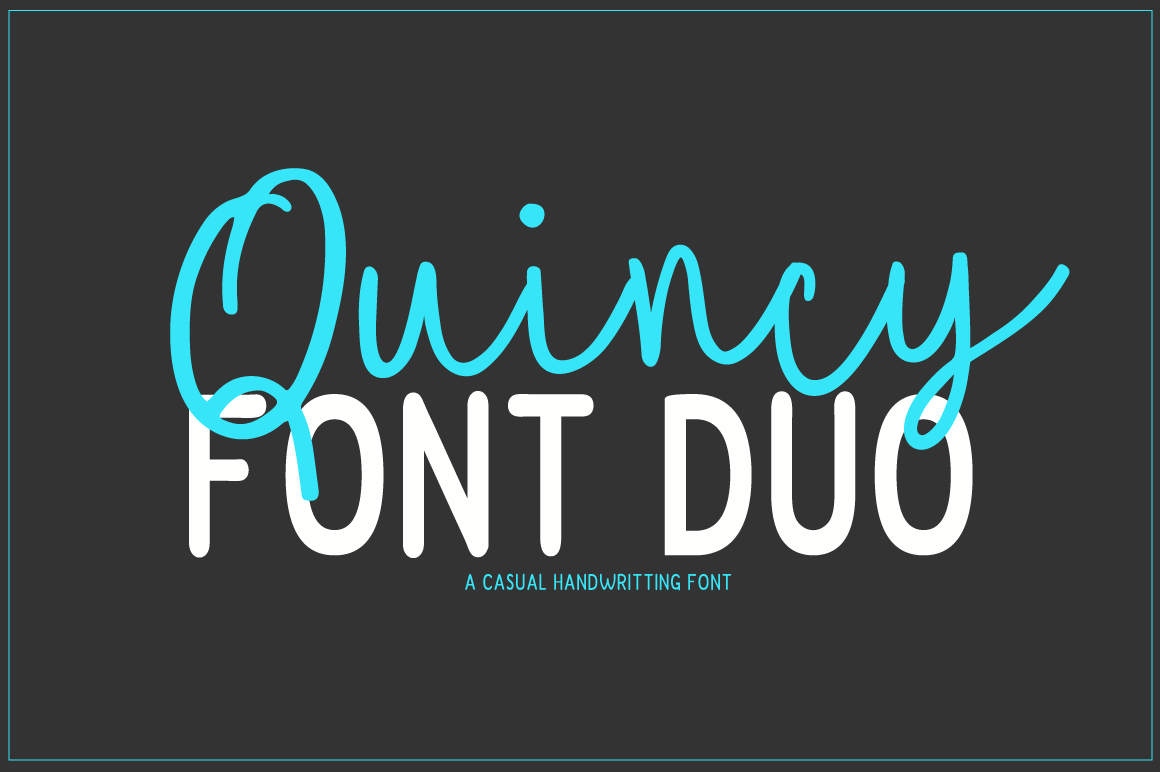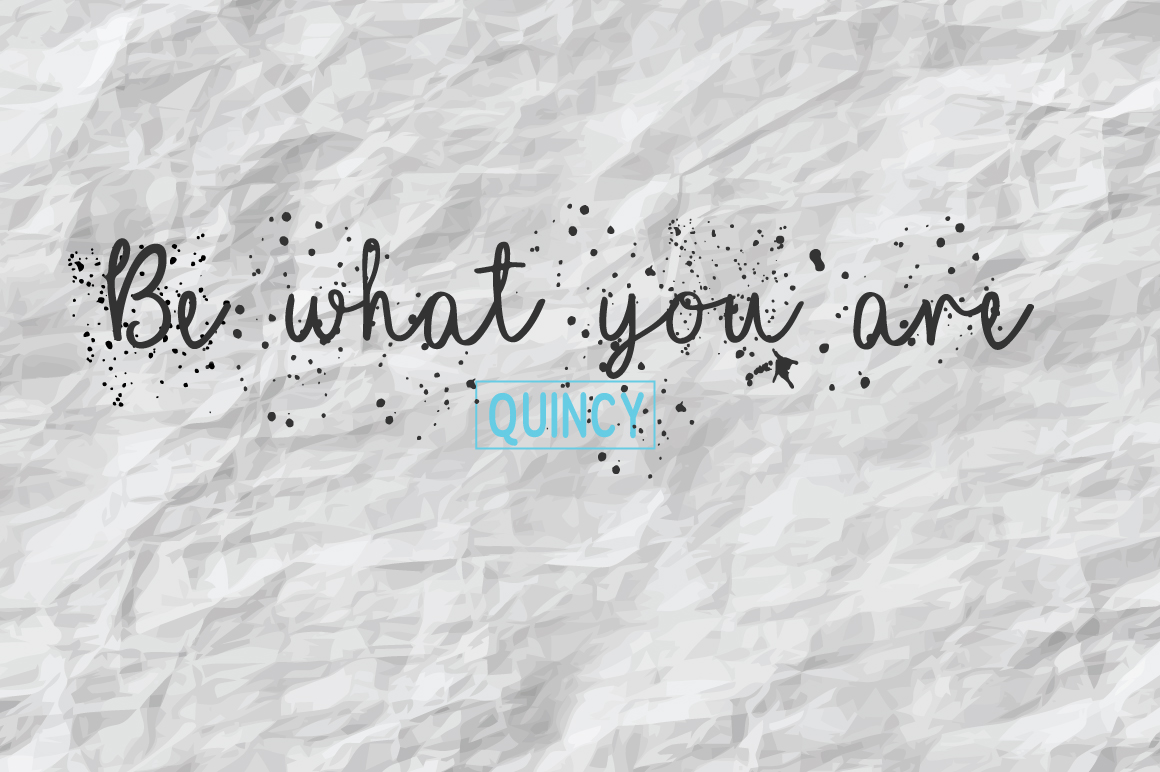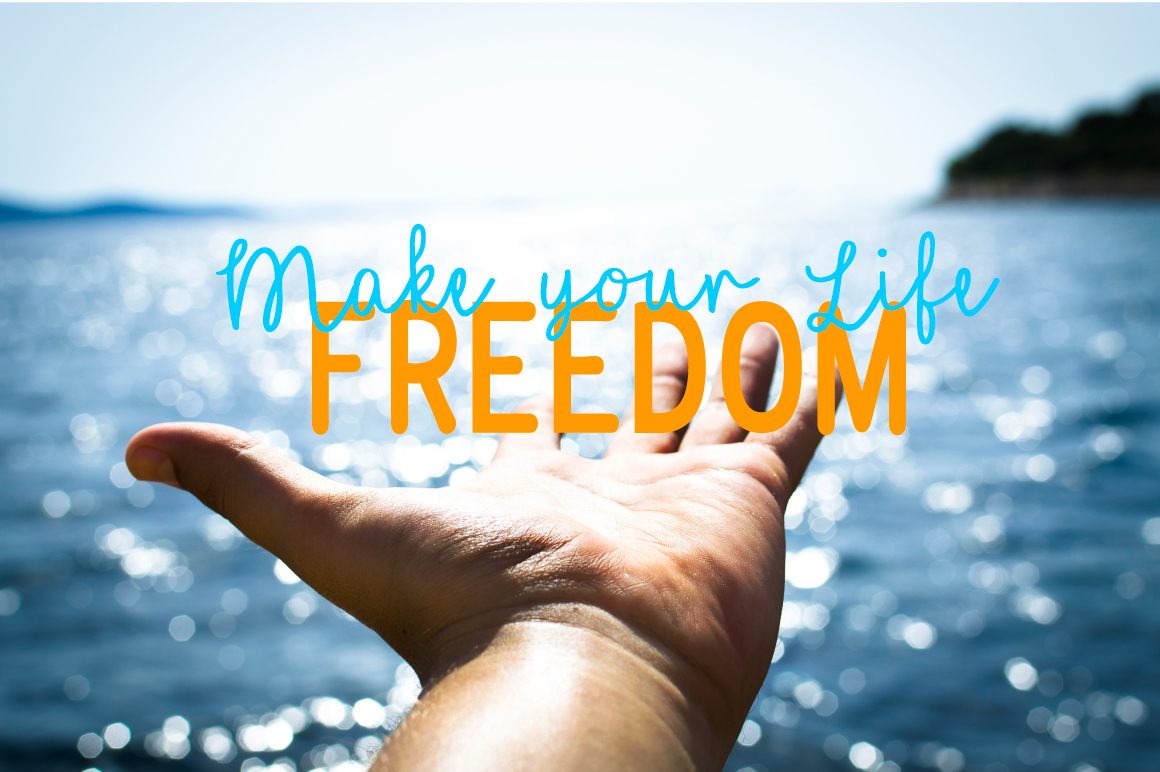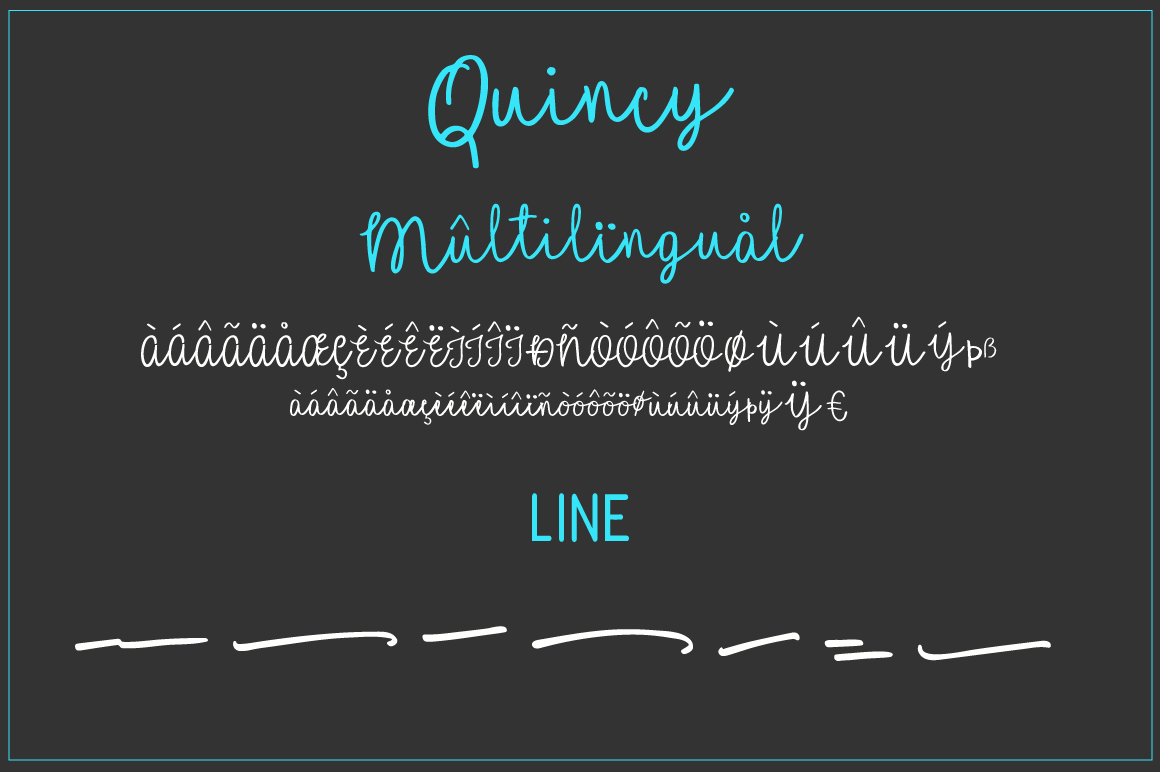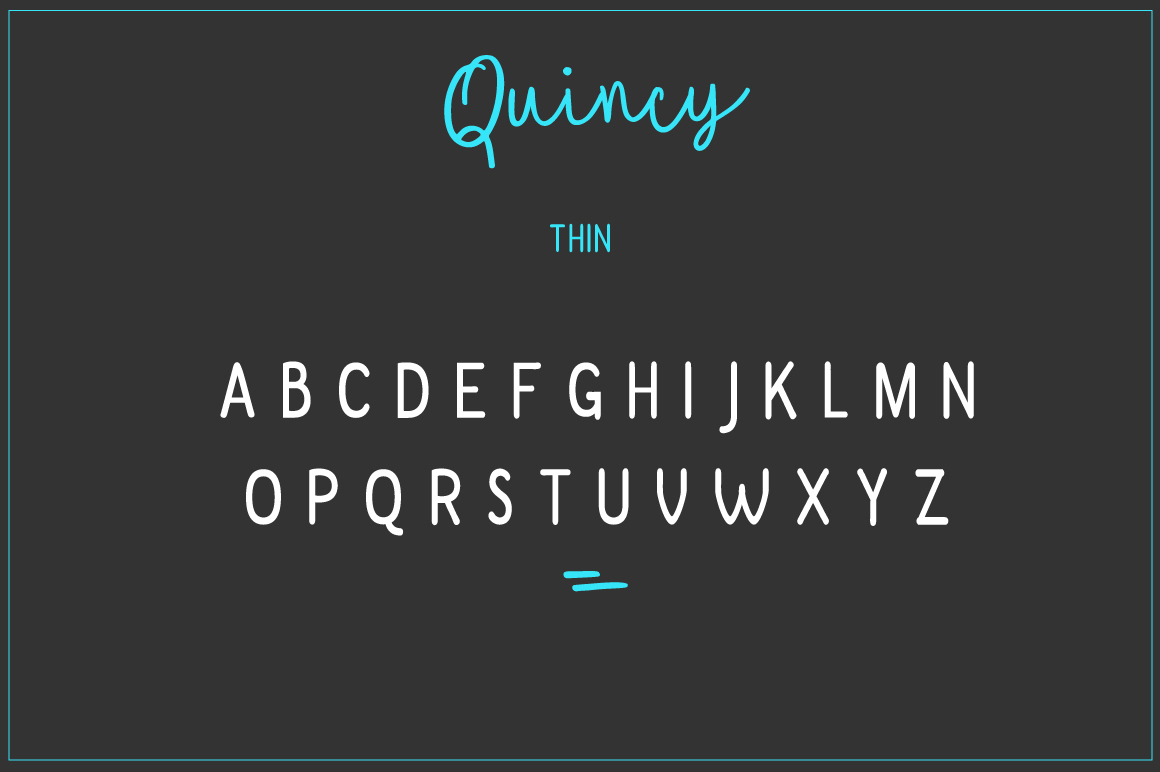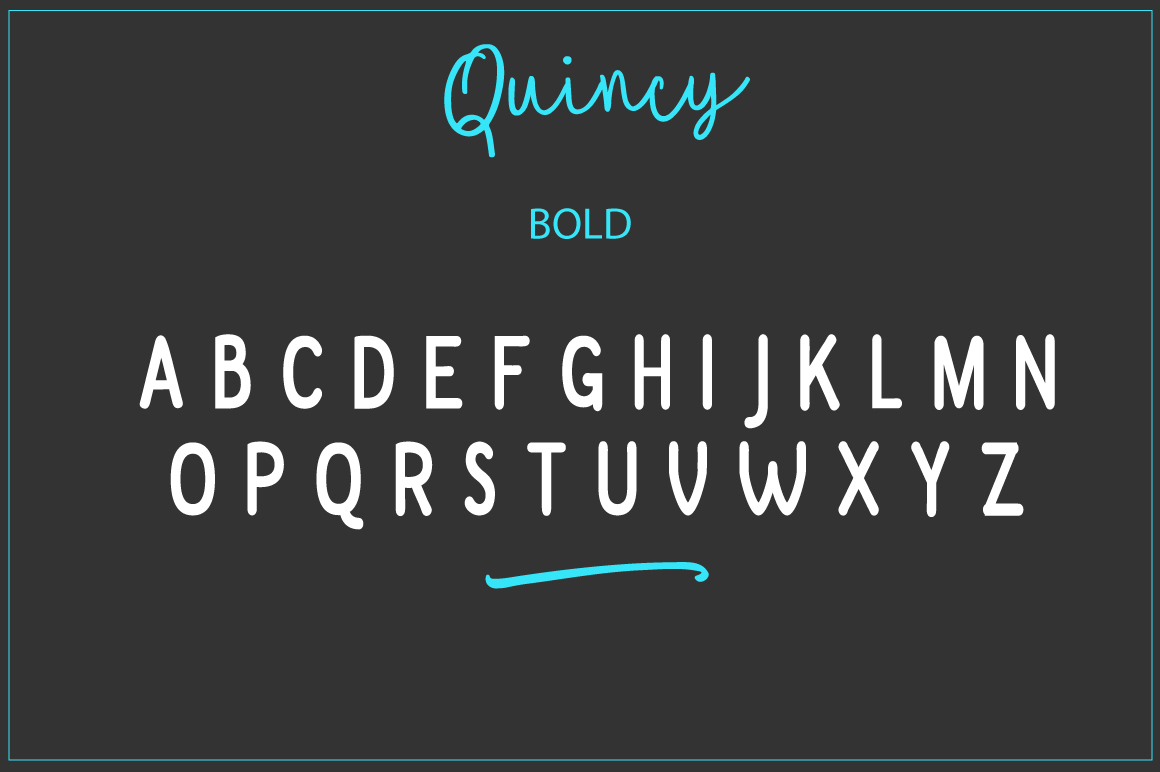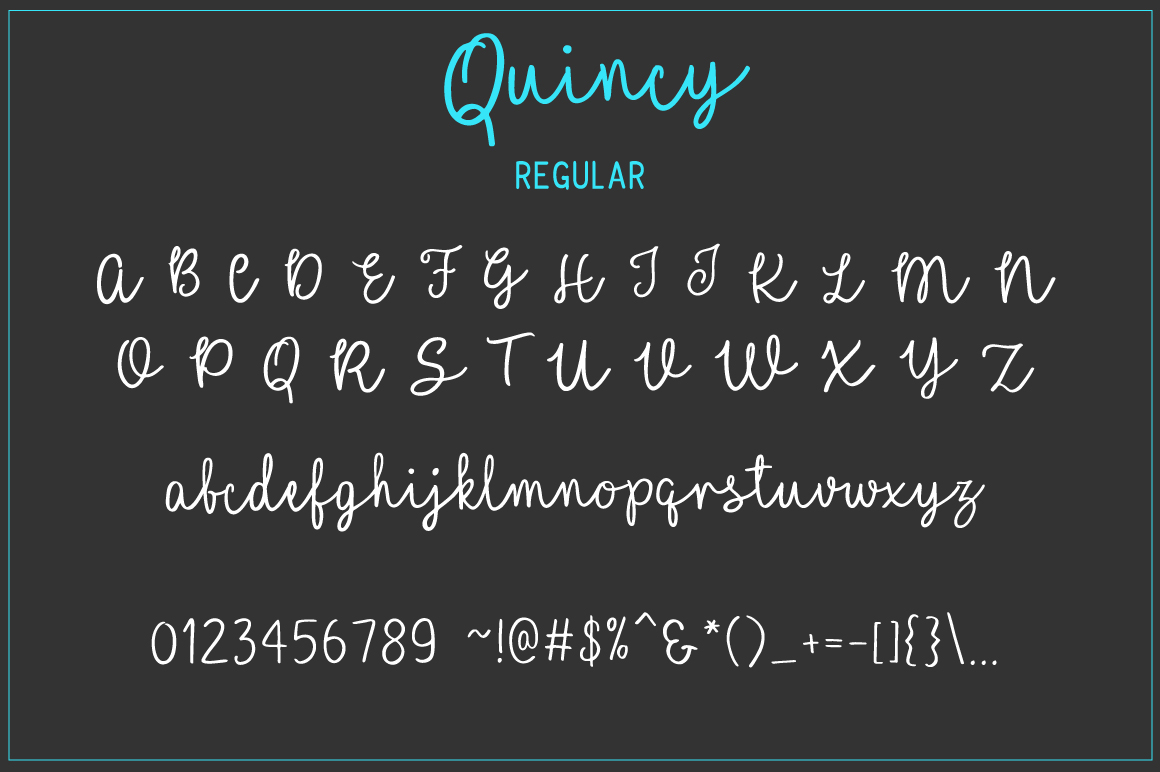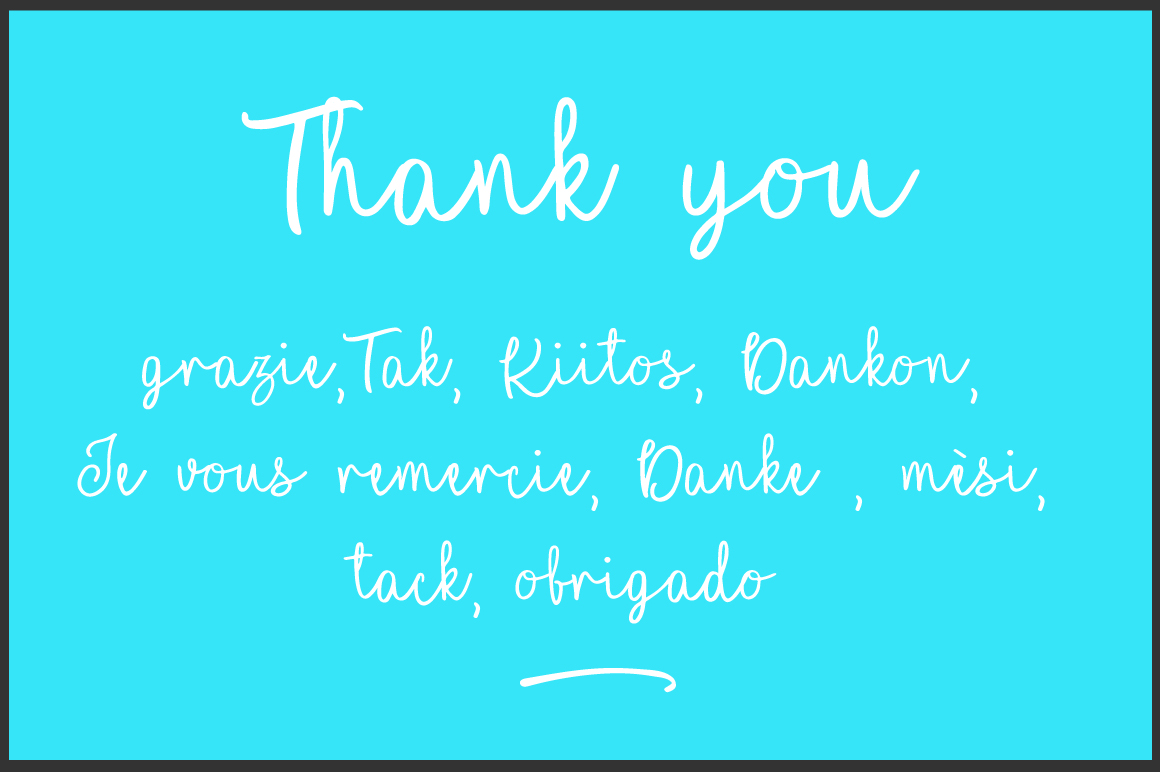
Quincy Font
About Quincy Font
Quincy is a neat handwritten font is perfectly suited for adding a light personal touch to your designs.
The Quincy family consists out of a set of down to earth fonts which are great for business branding. On the other hand it is playful and personal enough to add it as a signature or use it in creative projects such as wedding invites. A versatile font that you will use repeatedly.